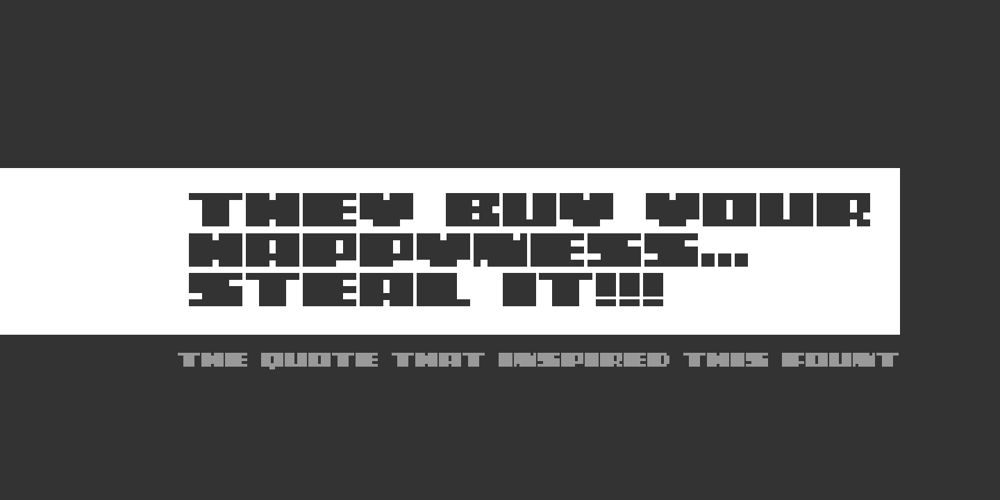
Project D Font Family was designed by Drew Maughan and published by DM Founts. Project D contains 2 styles and family package options. Project D is the fourth typeface released by DM Founts. It was inspired by the infamous graffiti atop the former Heygate Estate in South London, which I had passed by numerous times on the overground train years ago. Heygate Estate has since been replaced by soulless luxury flats, as per the gentrification agenda.The letters don’t entirely match the graffiti as they were created from memory, but I thought such a profound statement should be honoured.Project D is best used for impact at large sizes, although it should scale well. Use it for computer interfaces, retro headings and anything involving defiance, espionage, infiltration and spy games.